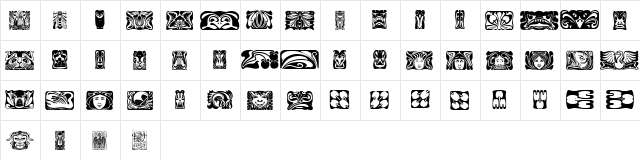
Jugendstil Ornamente Regular
| Designer | Dieter Steffmann |
Design Context for Jugendstil Ornamente Typeface
Jugendstil Ornamente brings ornamental detail and strong personality to headlines and identities, where visual impact matters more than quiet functionality.
Font Pairing: Pair with a clean neutral sans-serif for body copy to let Jugendstil Ornamente's character lead without overwhelming the composition.
Pro Tip: Treat Jugendstil Ornamente as the centrepiece of your typographic hierarchy. One strong heading set in a decorative face can carry an entire layout.